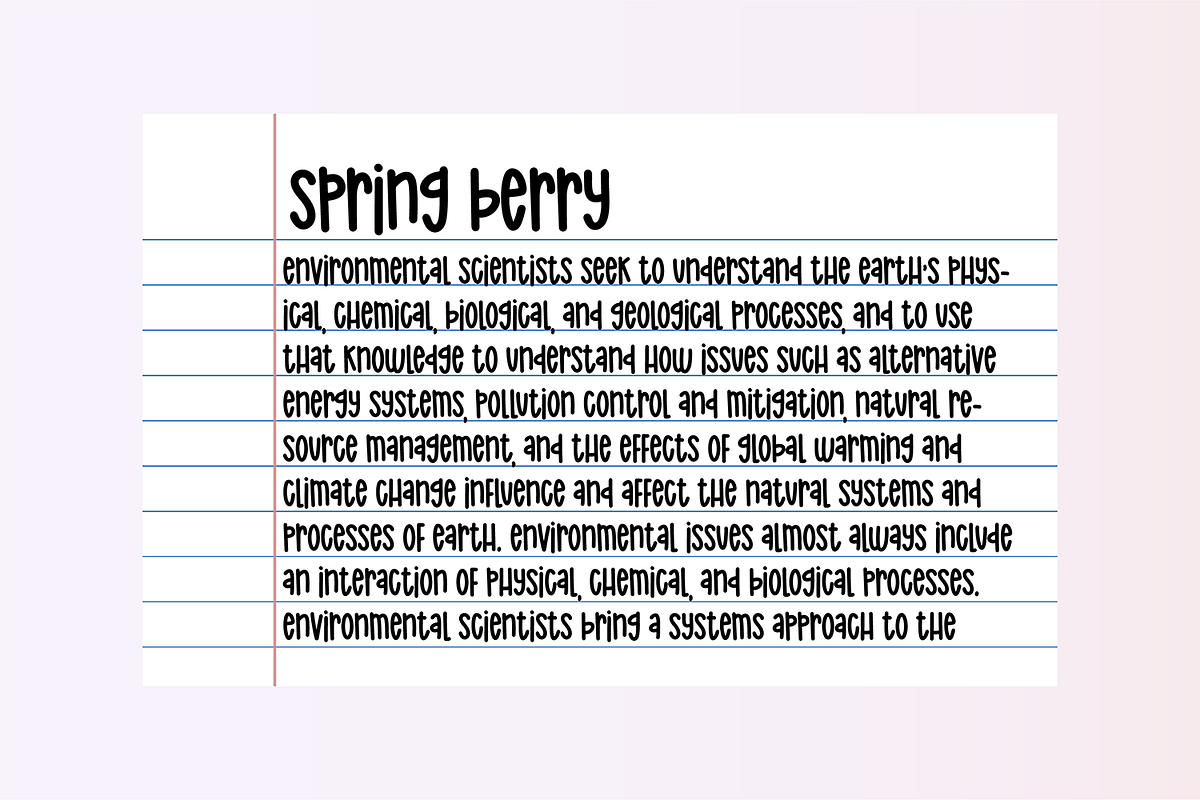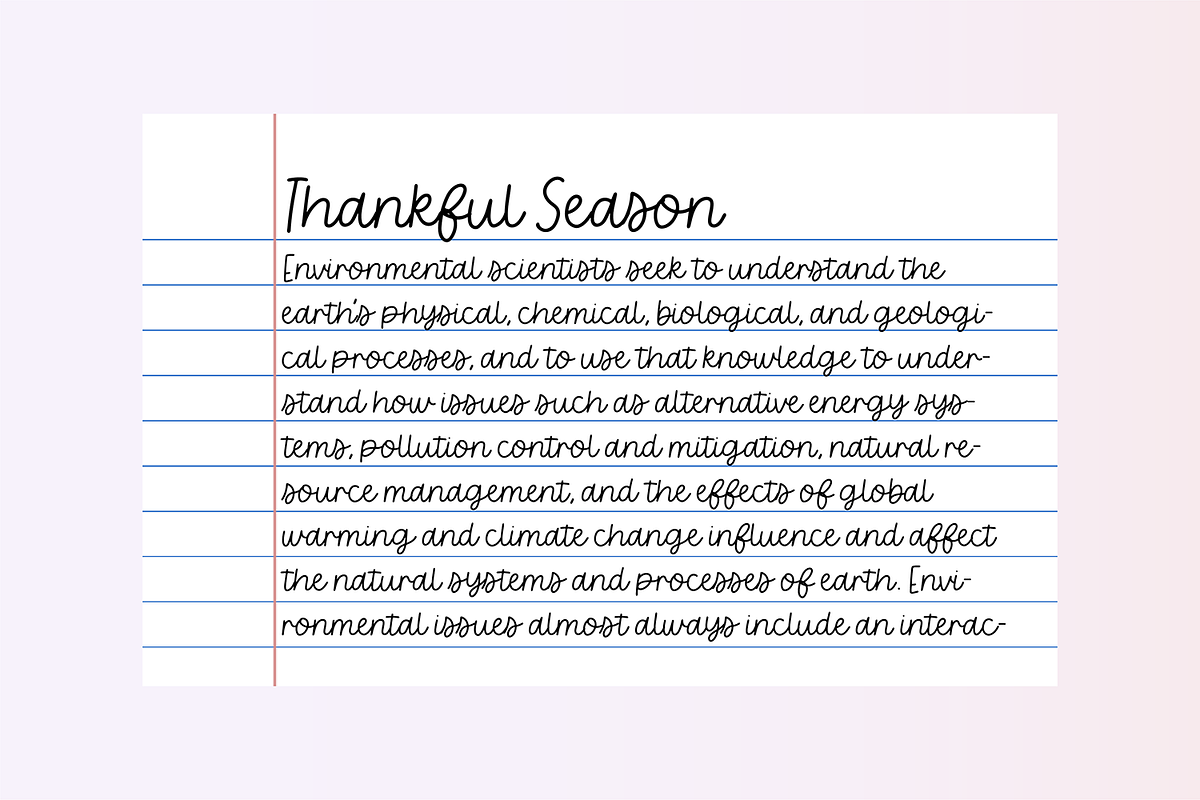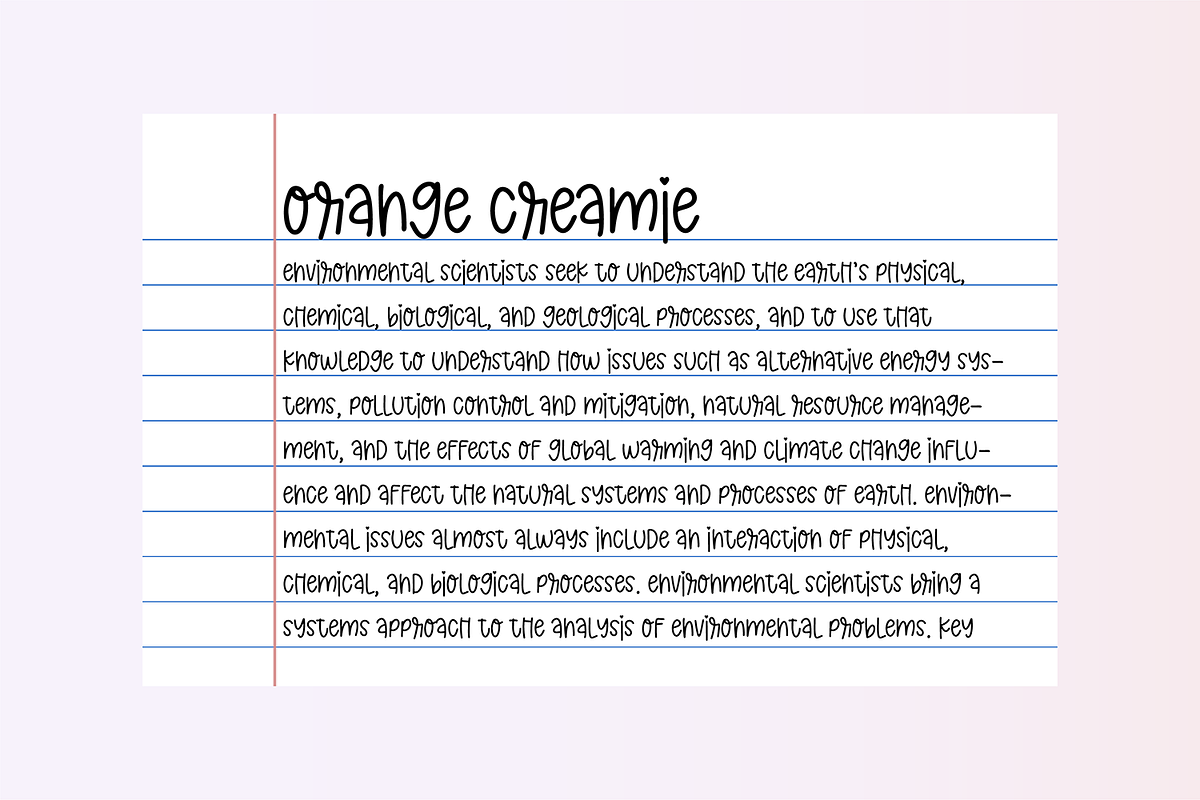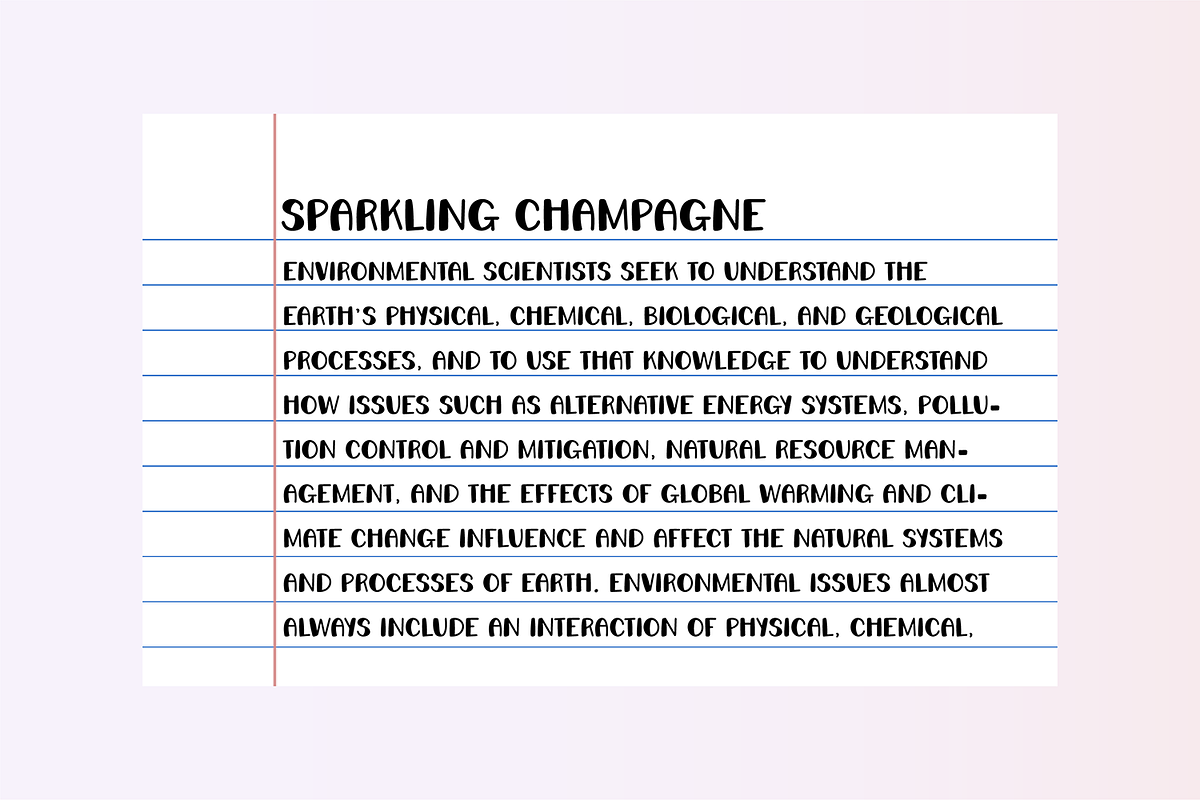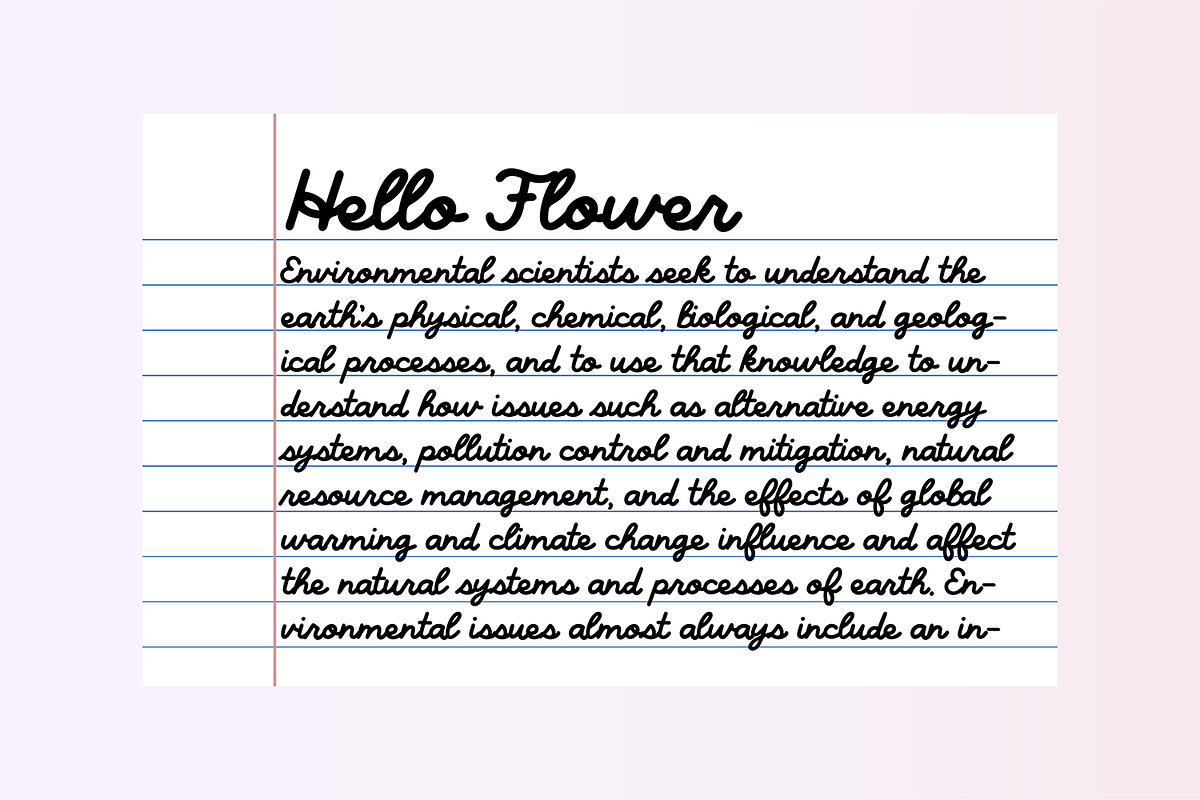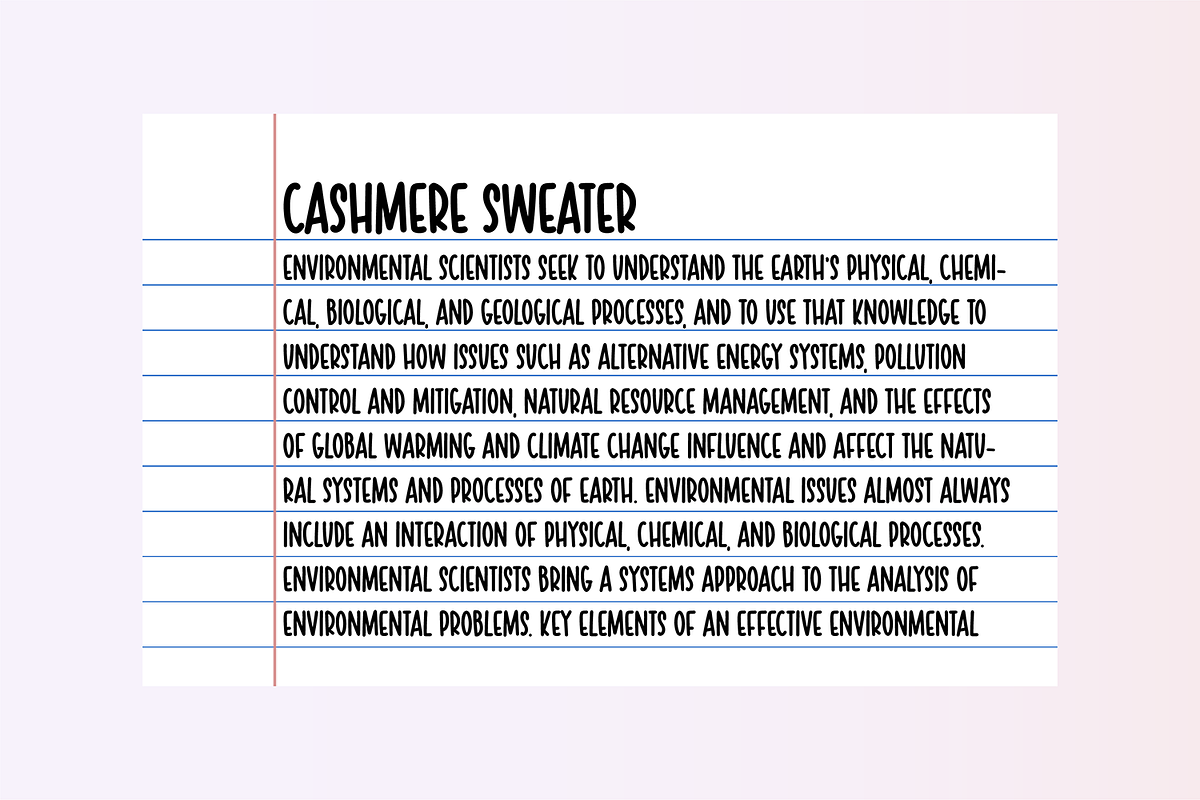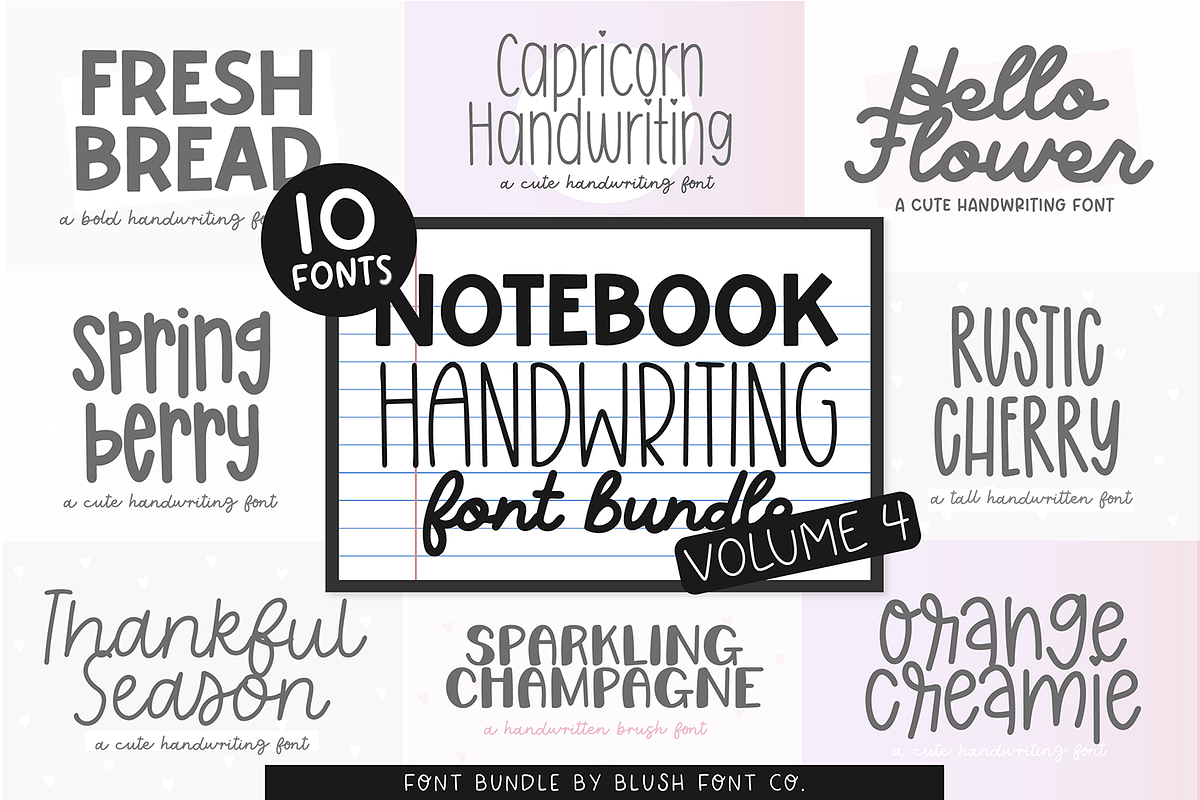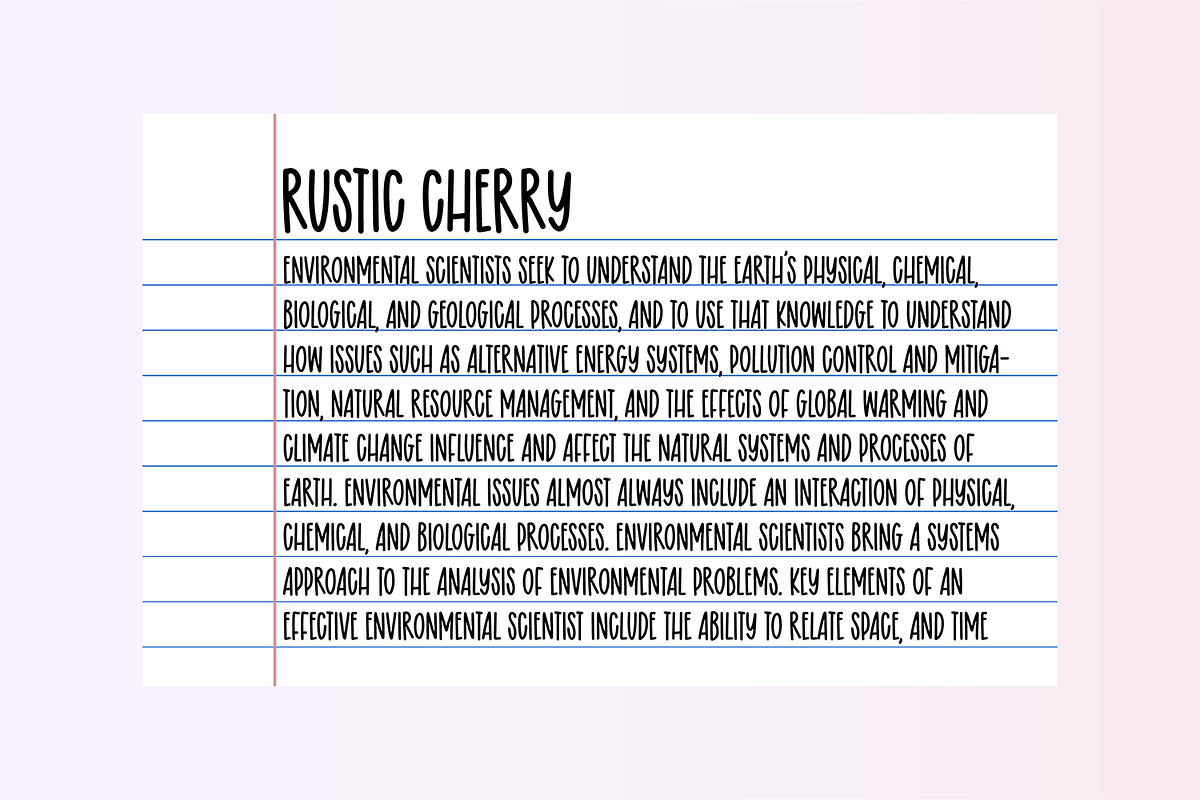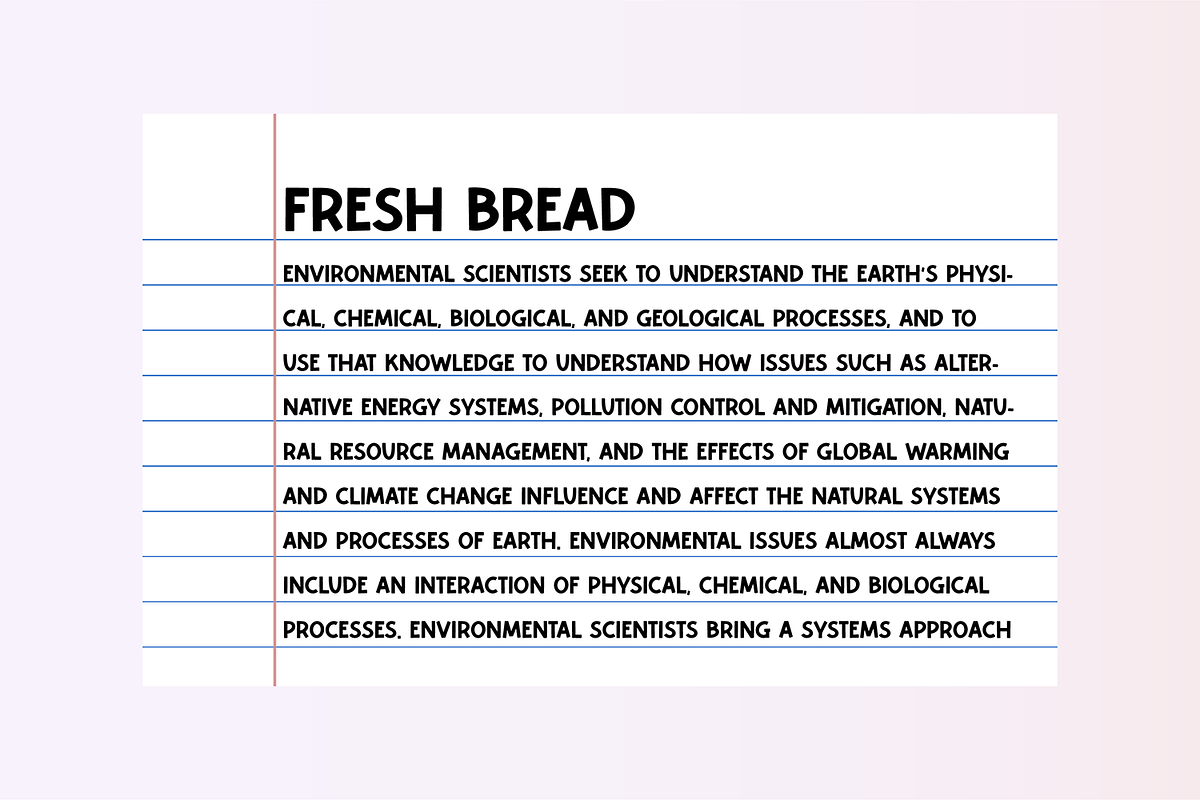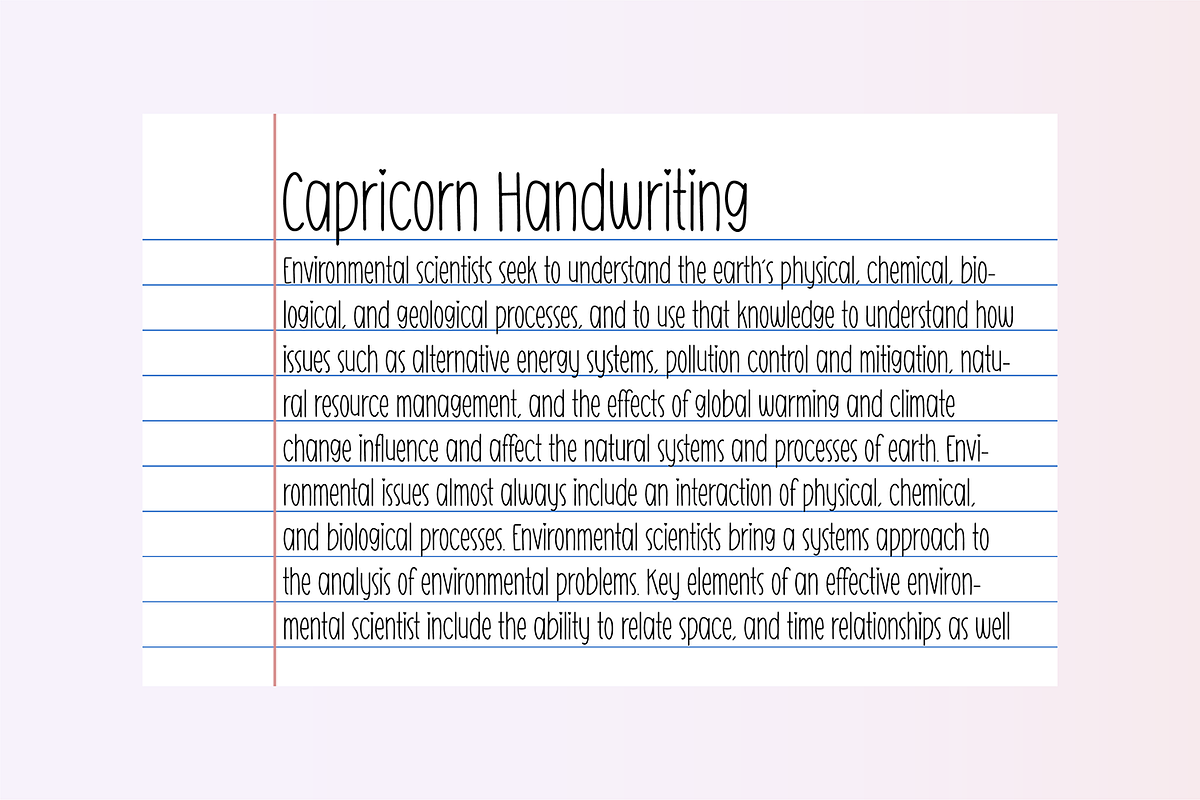
NOTEBOOK HANDWRITING Bundle Vol 4
NOTEBOOK HANDWRITING Font Bundle Vol. 4 - 10 fonts!
10 fonts specialized for note-taking.
Fonts Included: HELLO FLOWER SPRING BERRY CASHMERE SWEATER FRESH BREAD LITTLE TIGER ORANGE CREAMIE THANKFUL SEASON CAPRICORN HANDWRITING SPARKLING CHAMPAGNE RUSTIC CHERRY